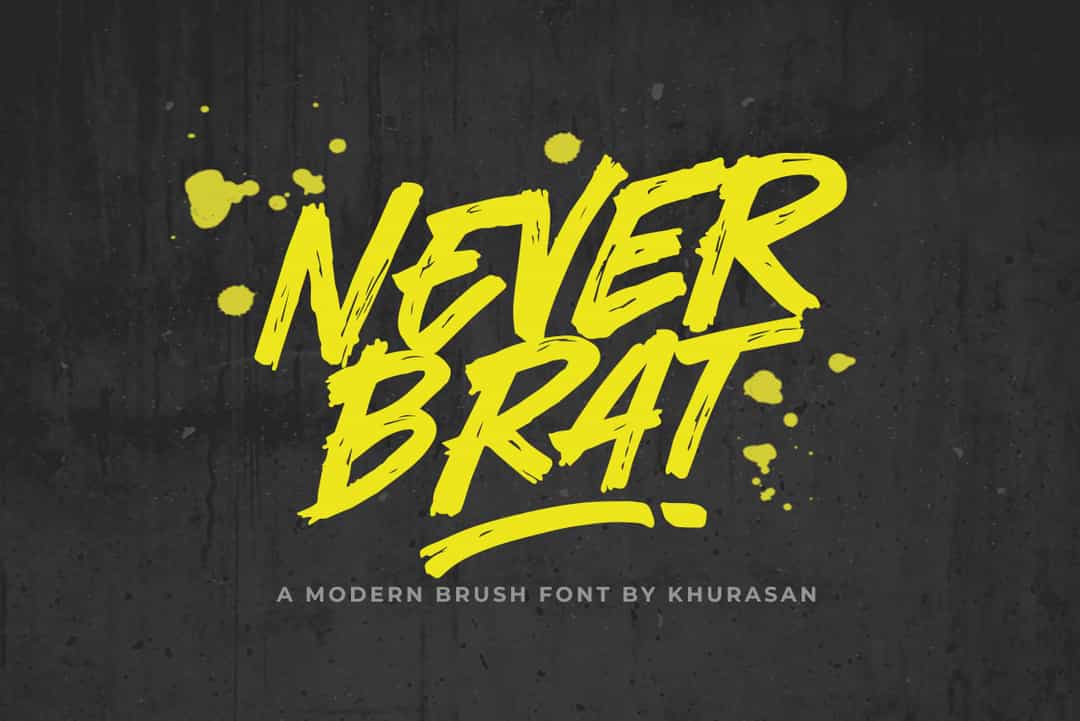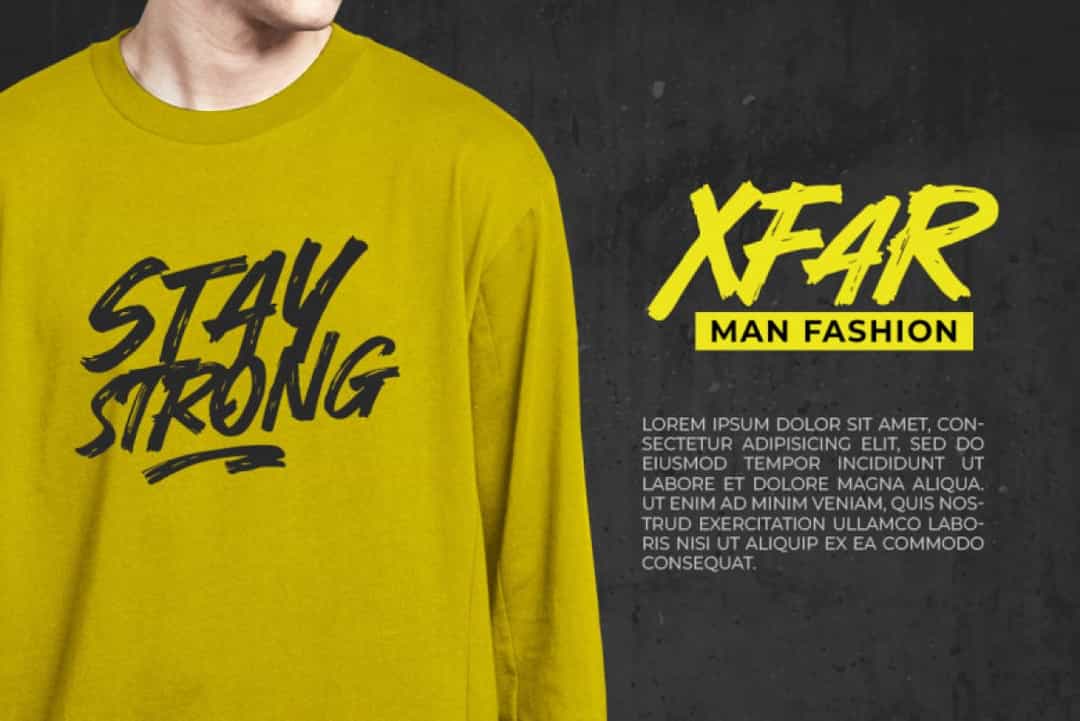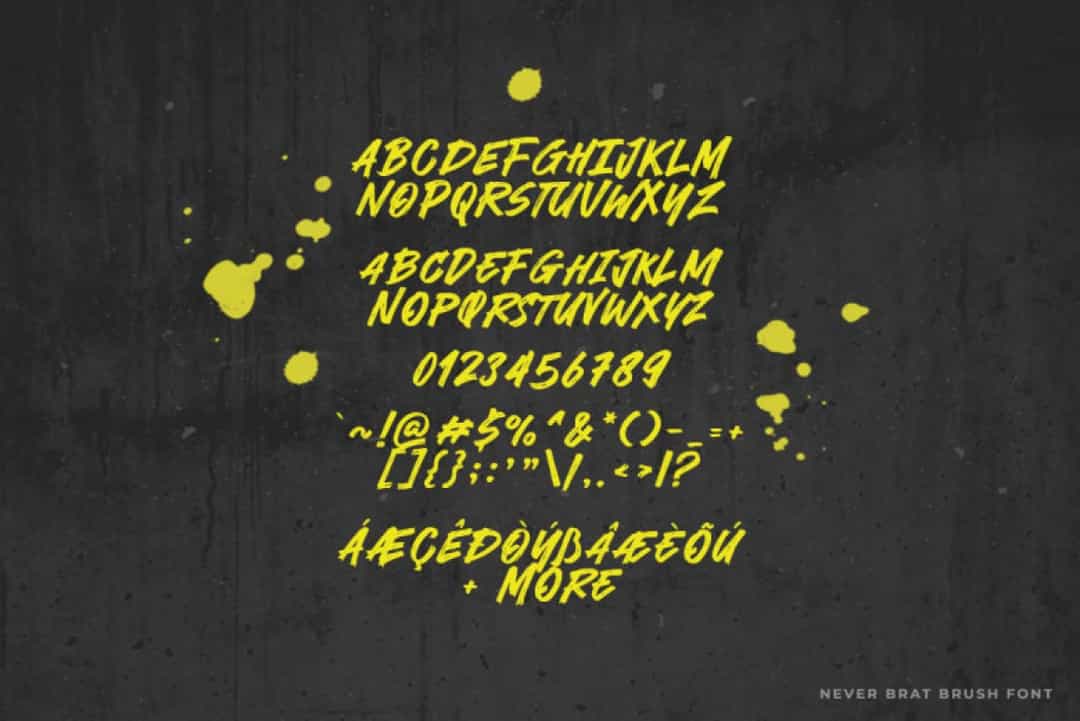
Never Brat is an eye-catching script brush font perfect for logos, posters, magazine covers, book covers banners and much more! Grab this fun display font now and use it to craft beautiful designs!